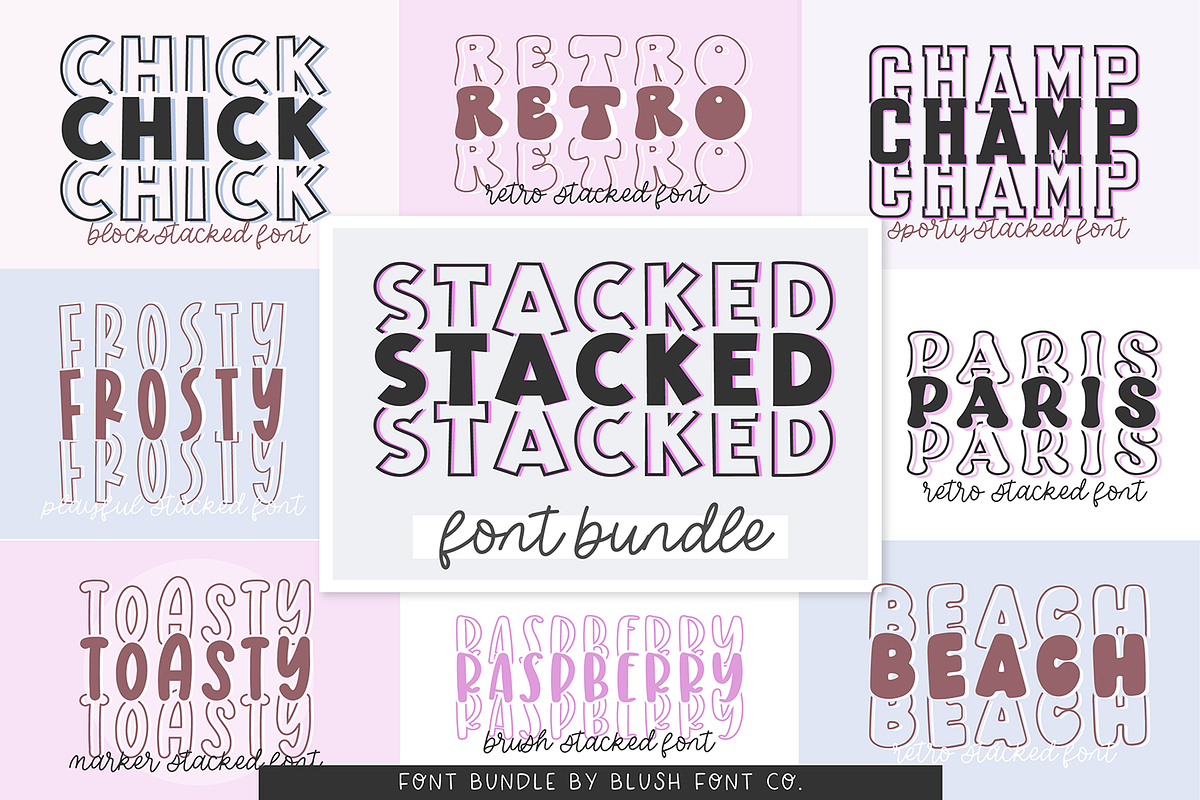
TRENDY STACKED FONT BUNDLE Free Download
Trendy Stacked Font Bundle Free Download
The Trendy Stacked Font Bundle Free Download is a stylish and versatile collection of fonts designed to give your designs a bold and contemporary feel. Featuring stacked letterforms, this font bundle is perfect for creating eye-catching headlines, logos, posters, and modern branding. Whether you're working on digital content, advertisements, or creative projects, these fonts offer the perfect mix of trendy style and visual impact.
This bundle includes multiple font variations, allowing you to experiment with different styles and effects to create unique compositions. From sleek modern fonts to bold stacked designs, the Trendy Stacked Font Bundle gives you all the tools you need for your next creative endeavor.
Trendy Stacked Font Bundle Free Download is ideal for designers looking for bold, modern fonts that make a statement. Download this versatile font bundle today and elevate your designs with fresh, trendy typography!